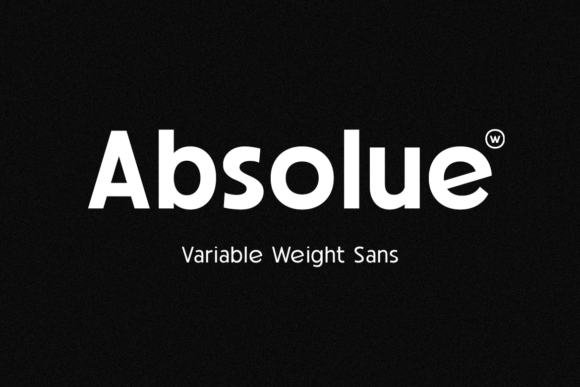
I still remember the frustration of working on a branding project for a client, only to get stuck on choosing the right font. The design brief was clear: modern, sophisticated, and versatile. I scoured the internet, tried out countless fonts, but nothing seemed to fit the bill. That was until I stumbled upon Absolue Font. ✨
In this article, I’ll share my experience with Absolue Font, its features, and how to make the most of it in various design applications. Whether you’re a designer, crafter, or creative hobbyist, you’ll learn how to harness the power of this versatile sans serif typeface.
An Honest Review of Absolue Font
- ✅ Clean and modern aesthetic: Absolue Font brings a sense of sophistication and clarity to any design project.
- ✅ Versatile: Its adaptable nature makes it suitable for a wide range of design applications, from branding and logo design to headlines, website content, and book layouts.
- ✅ Variable font format: Absolue Font’s variable font format allows for seamless transitions between different font weights and styles.
While Absolue Font is an excellent choice, there are a few things to keep in mind: 🤔
- ⚠️ Limited availability of certain glyphs: Some users have reported that certain glyphs or special characters are not available in Absolue Font.
- ⚠️ Requires OpenType features support: To take full advantage of Absolue Font’s features, you’ll need to use design software that supports OpenType features.
The Story Behind Absolue Font
Absolue Font was designed with the goal of creating a versatile and modern sans serif typeface that could be used across various design applications. The designer aimed to create a font that would bring a sense of sophistication and clarity to any design project. 💡
The design process involved experimenting with different font styles and weights to create a cohesive and adaptable font family. The result is a font that is both clean and modern, yet elegant and sophisticated.
| Author | Wasabib Studio |
Q: What is Absolue Font?
A: Absolue Font is a versatile sans serif typeface that comes in a variable font format, making it suitable for a wide range of design applications.